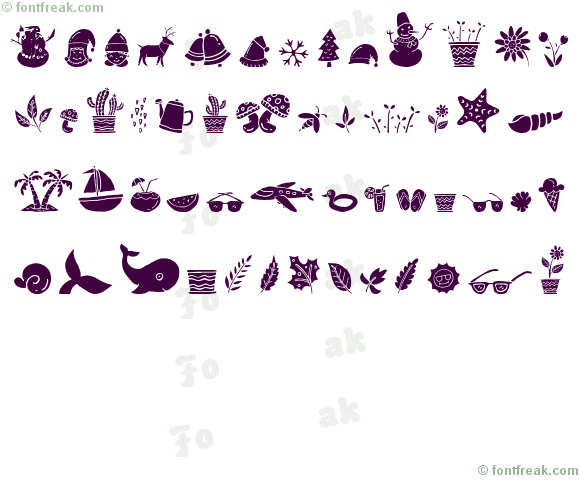
All Season Ornaments
All Season Ornaments by Situjuh Nazara is a decorative dingbat font that brings a unique flair to any design project. This font features an array of whimsical symbols that capture the essence of various seasons, making it a versatile choice for graphic designers and content creators alike. With a clean and uniform stroke weight, the designs maintain a balanced contrast that enhances their visual appeal. The spacing between the characters is thoughtfully considered, allowing each ornament to stand out without overwhelming the overall composition.
This font is ideal for a variety of use cases, including wedding invitations where seasonal motifs can add a personal touch, movie posters that require eye-catching elements, and restaurant menus that benefit from playful visuals. Additionally, it can be effectively used in seasonal greeting cards or promotional materials for events, making it a practical choice for small business owners looking to enhance their marketing efforts.
The target audience for All Season Ornaments includes graphic designers seeking to infuse creativity into their work, small business owners who want to make their projects more engaging, and content creators looking for distinctive elements to enhance their digital content. The font's versatility makes it suitable for both print and digital applications, ensuring that it can be used in a wide range of contexts.
What sets the All Season Ornaments font apart is its ability to evoke a sense of joy and celebration through its playful illustrations. Each ornament tells a story of the seasons, allowing designers to convey emotions and themes effectively. With its free download availability, this font is an excellent resource for those looking to add a touch of seasonal charm to their projects.